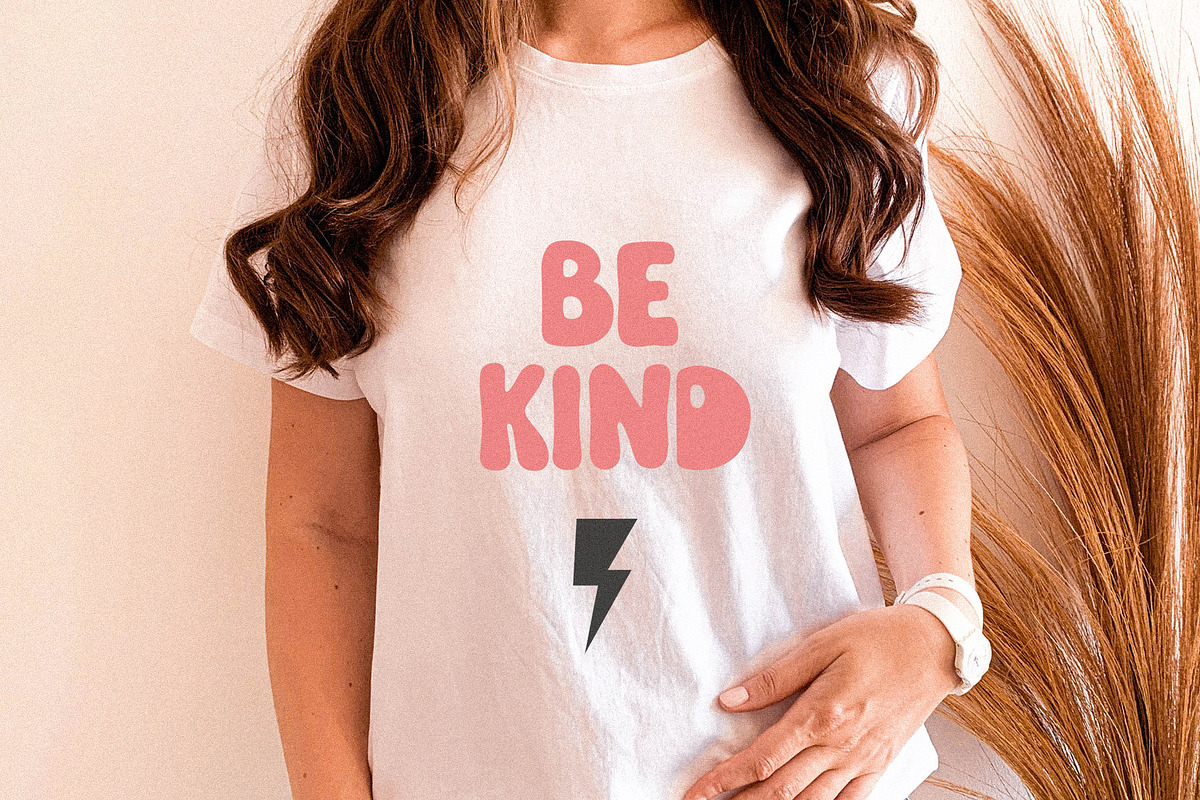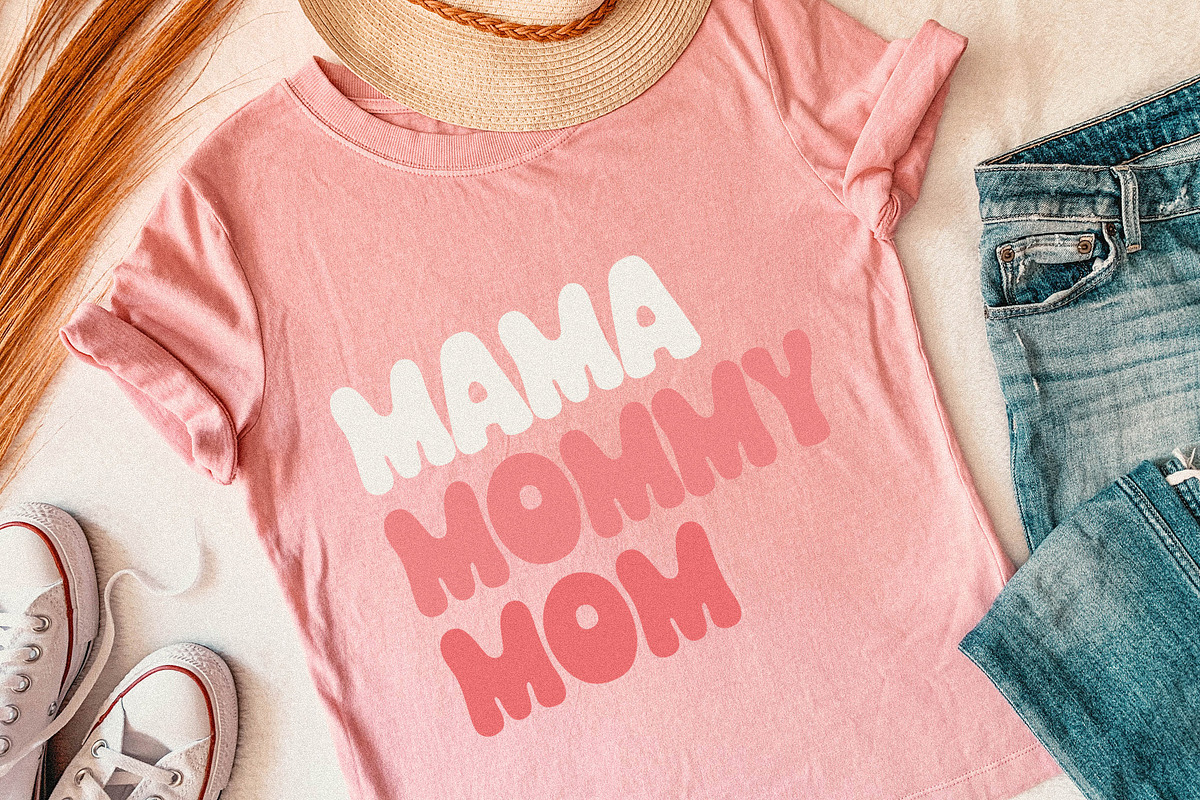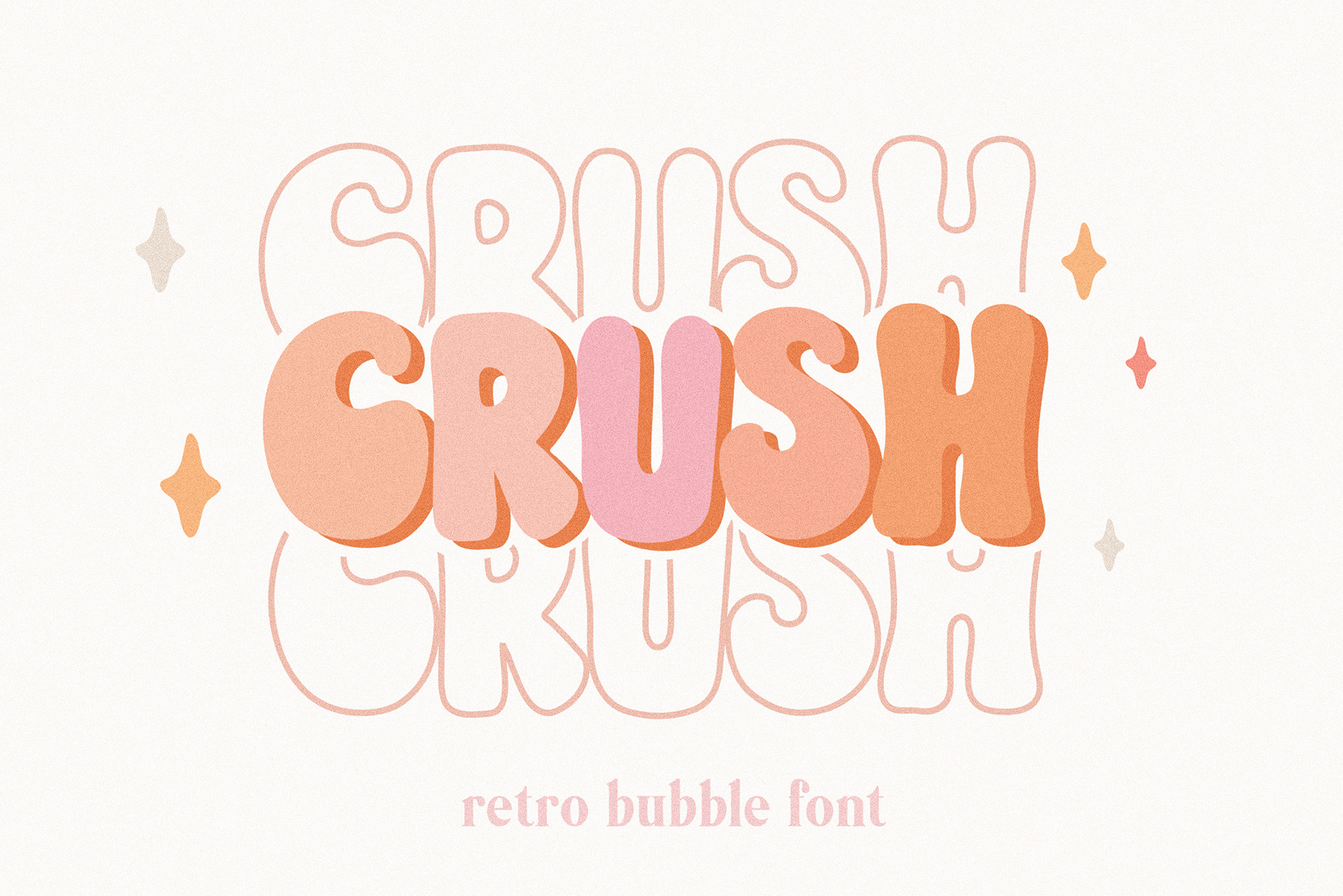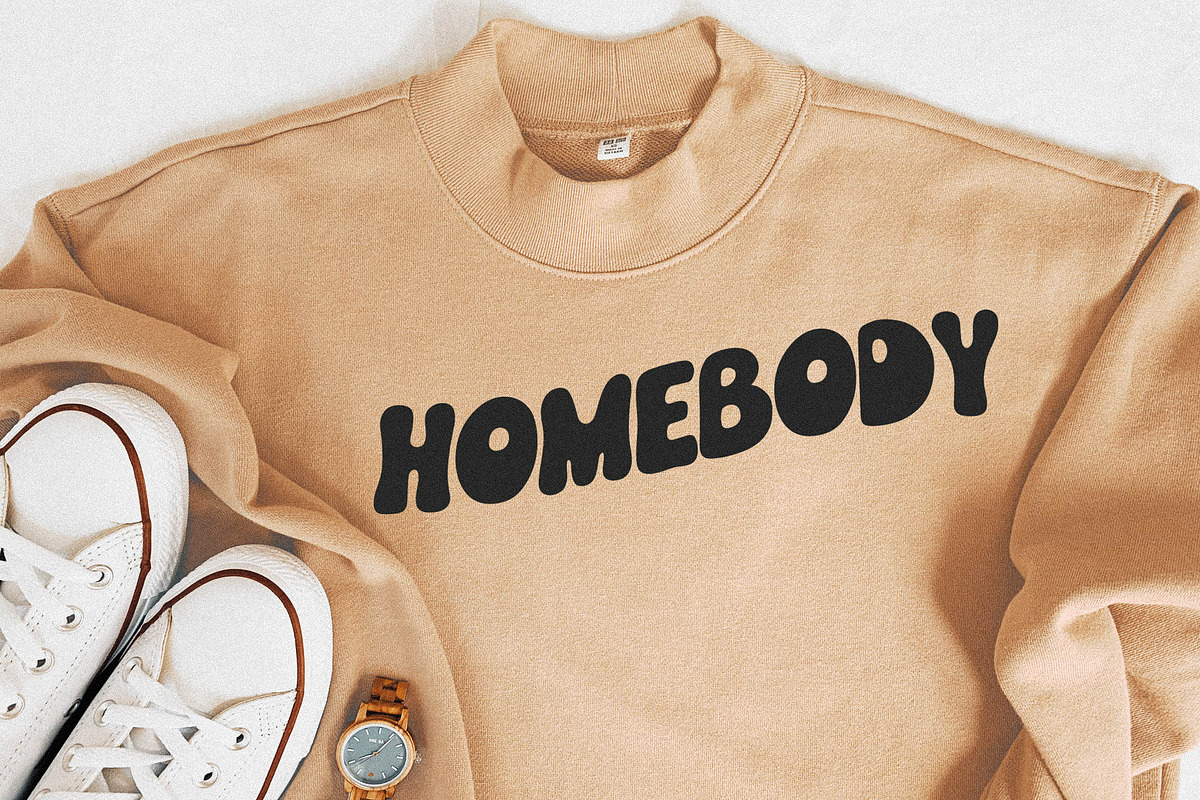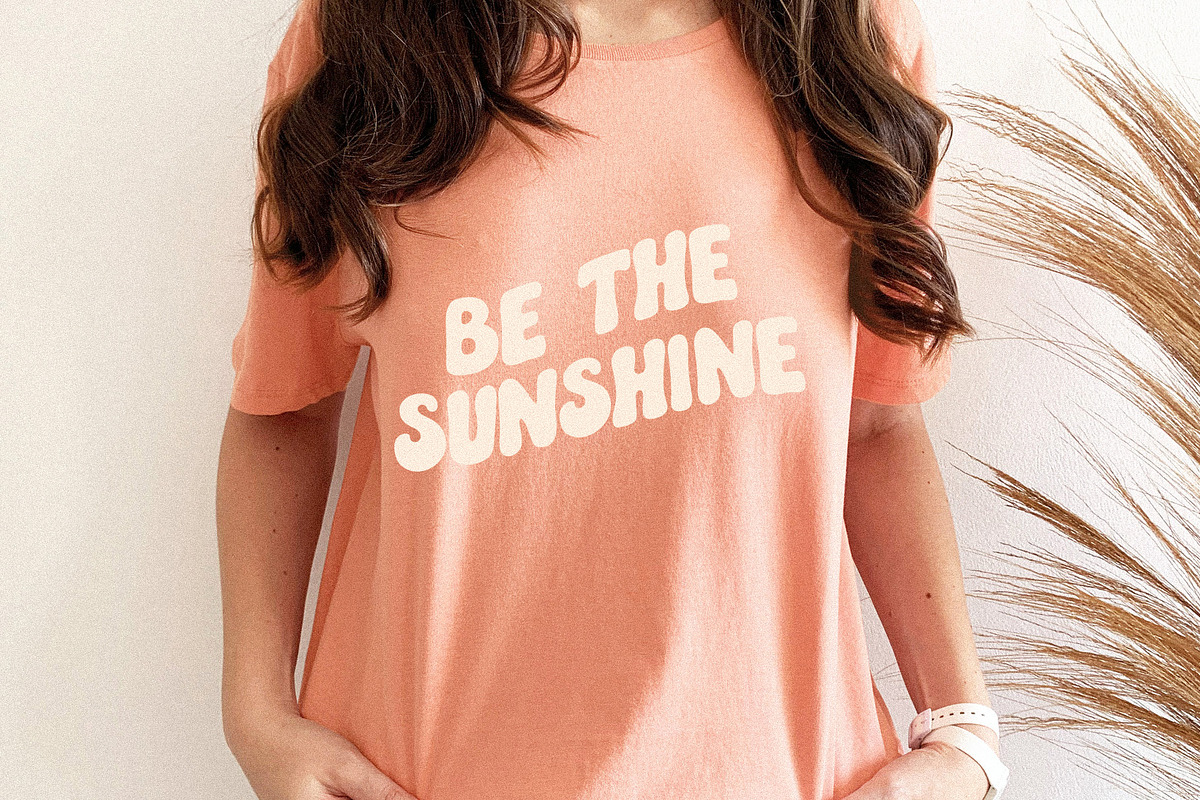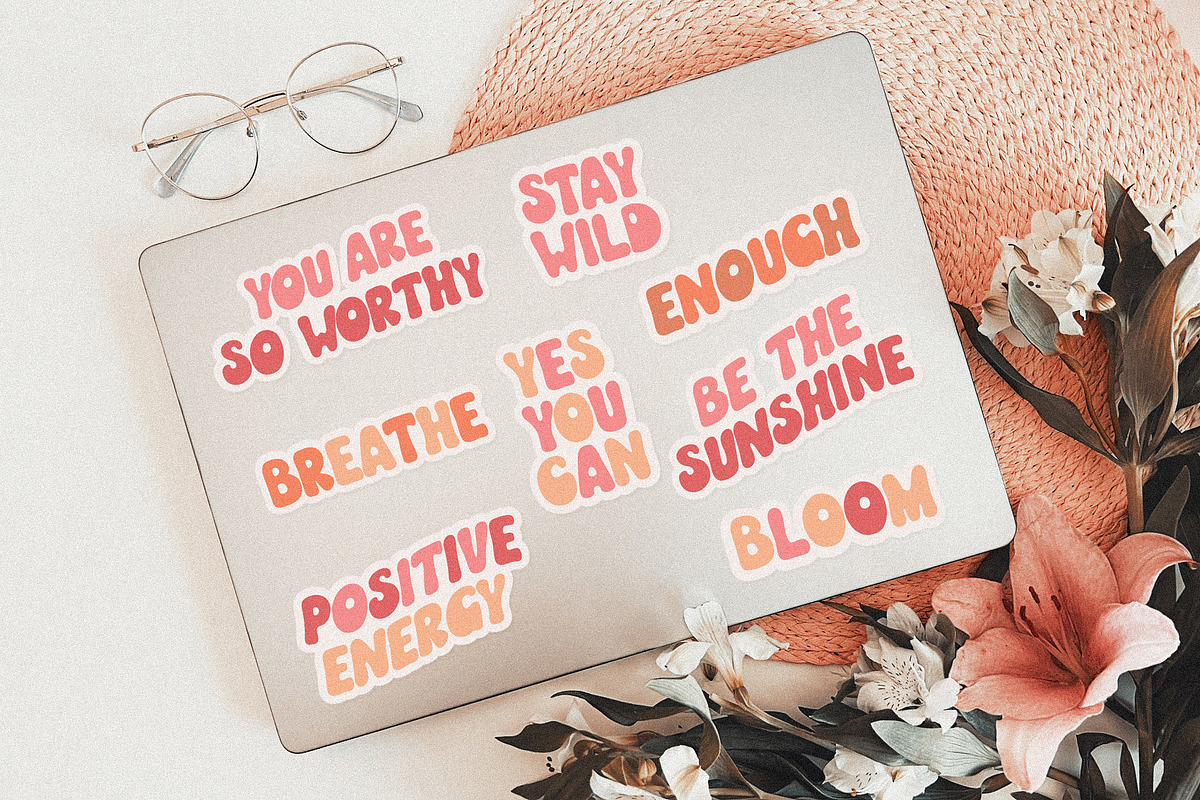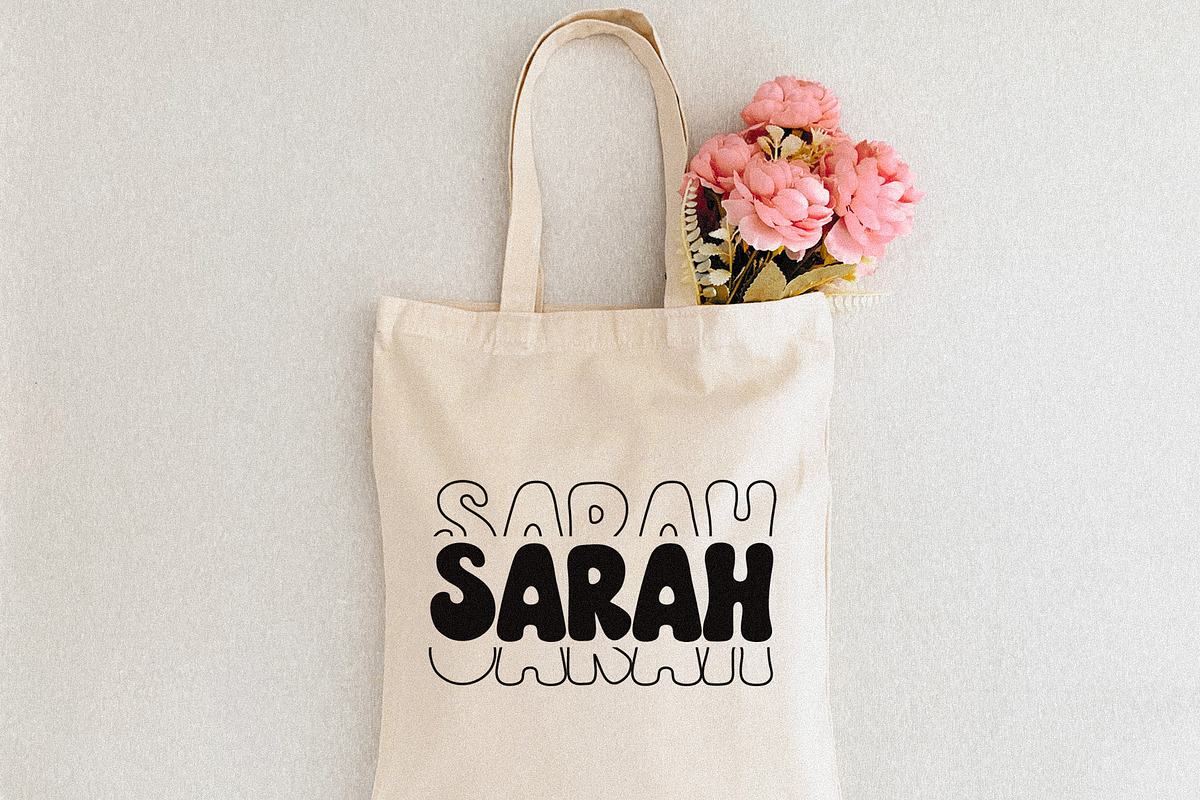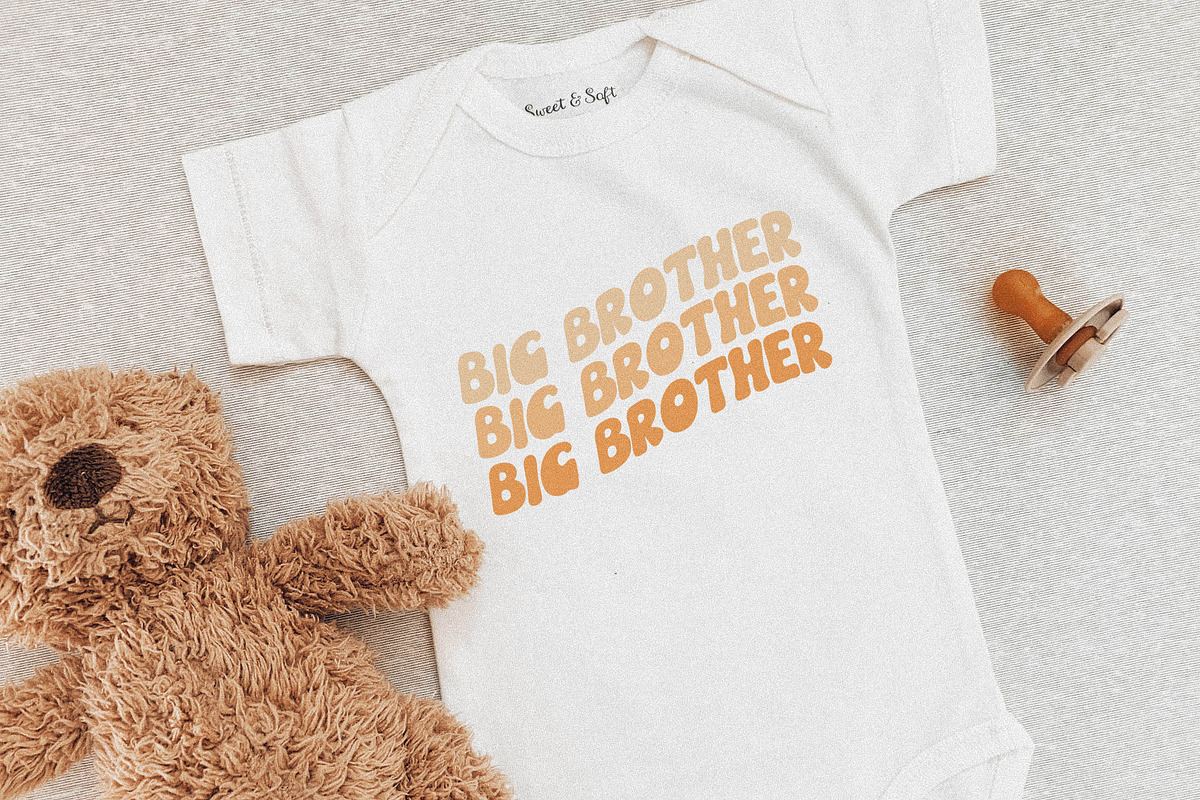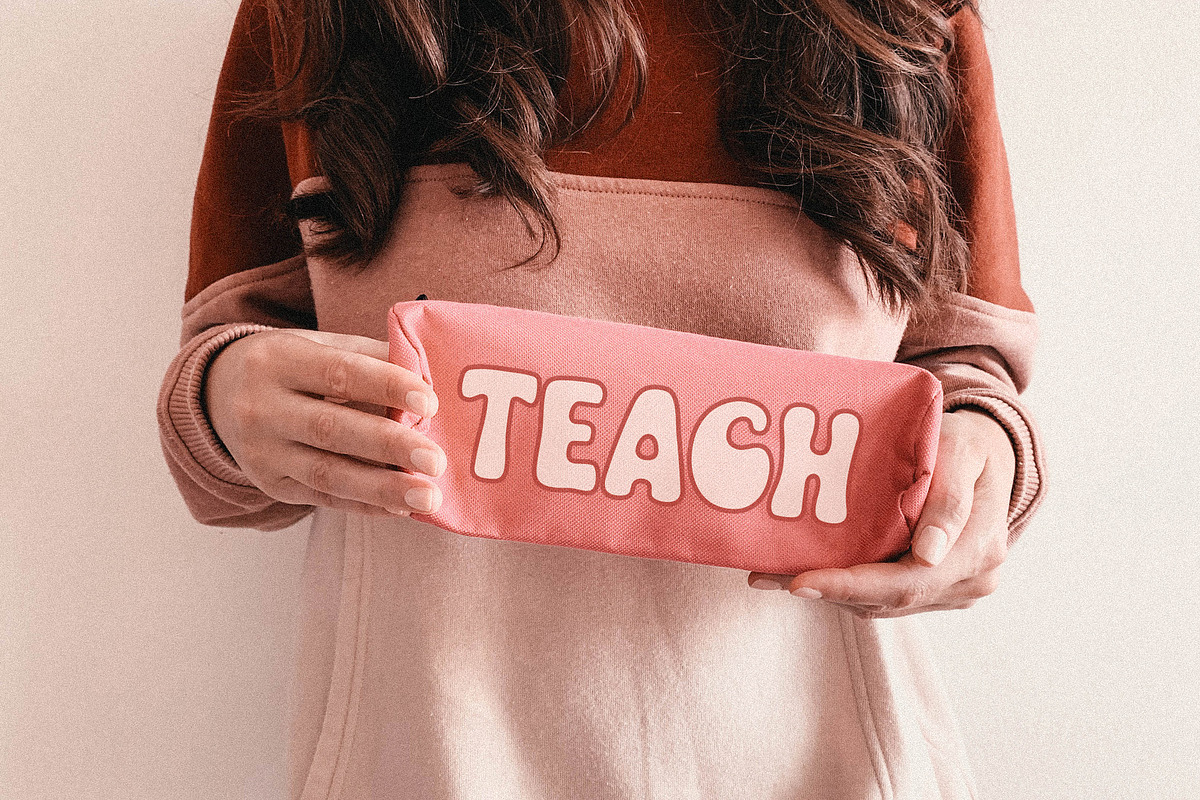
Crush Bubble Retro Font
CRUSH a bubble handwritten font. Perfect to create stickers, quotes, t-shirt designs, mug designs, baby svg onesie projects, cricut projects, sublimation designs and svg files.